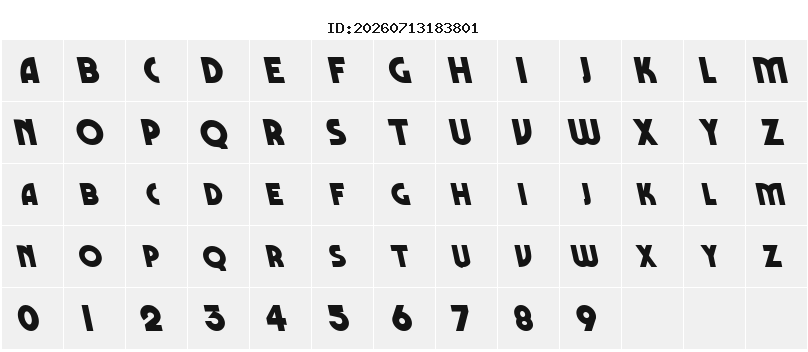
• Font Name: Backslide
• Full Font Name: Backslide Bold
About Backslide.ttf
Backslide.ttf is a modern, elegant sans-serif font designed for ultimate readability and visual harmony. Perfect for branding, headlines, web design, and print materials.